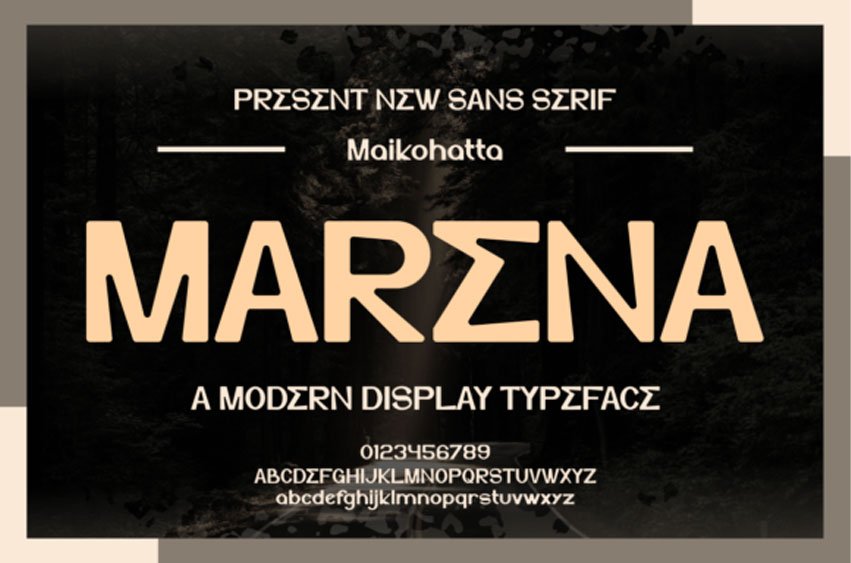
Marena Font is a modern typeface with bold and authentic display lettering.
This lovely font is suitable for any branding project like logo, t-shirt printing, esports, and many more. Outstanding in a wide range of contexts.